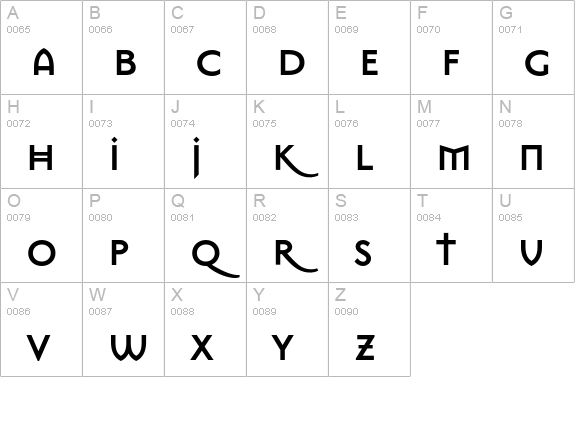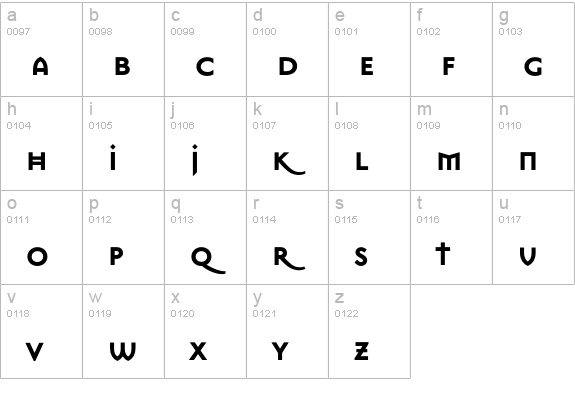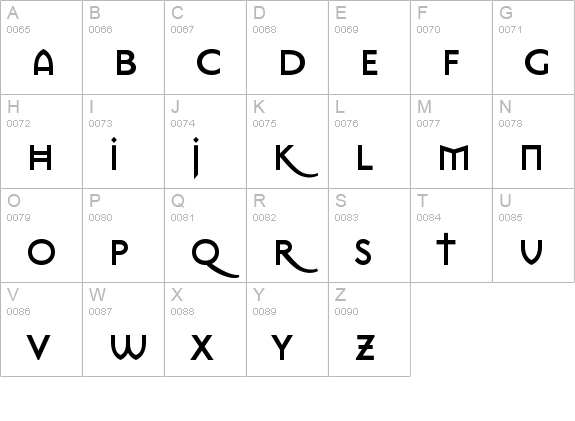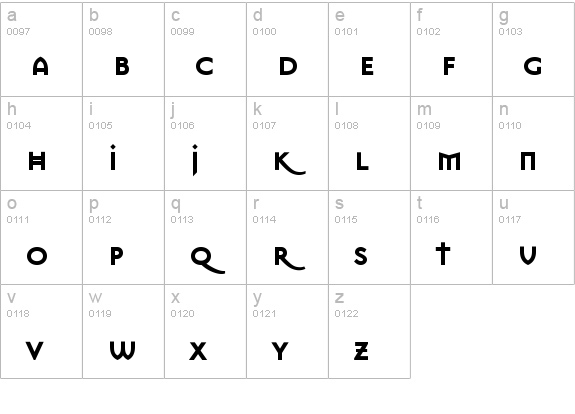
MasonSansBold Font Details
MasonSansBold is a bold and commanding font that exudes confidence and strength. With its sleek and modern appearance, this font is perfect for making a statement in various design projects. Whether you need to create eye-catching headlines, powerful logos, or impactful posters, MasonSansBold is the ideal choice. The thick and solid letterforms of MasonSansBold add a touch of boldness and assertiveness to any text. Its clean and crisp lines make it highly readable, ensuring that your message will be conveyed with clarity and impact. This font is versatile and can be used in a variety of design styles, from minimalist to futuristic. What makes MasonSansBold even more appealing is that it is freely available to download at FontsMarket.com. This means that you can easily access this font and incorporate it into your design projects without any restrictions. Whether you are a professional designer or a hobbyist, having access to high-quality fonts like MasonSansBold can greatly enhance your creative work. In addition to its bold and striking appearance, MasonSansBold also offers a wide range of characters and glyphs, allowing you to fully customize and personalize your designs. From alternate letterforms to ligatures, this font provides you with ample creative freedom to create unique and captivating typography. Download MasonSansBold today from FontsMarket.com and unleash the power of this remarkable font in your design projects. With its boldness, versatility, and the fact that it is freely available, MasonSansBold is an essential addition to any designer's toolkit. Elevate your designs and captivate your audience with this remarkable font.